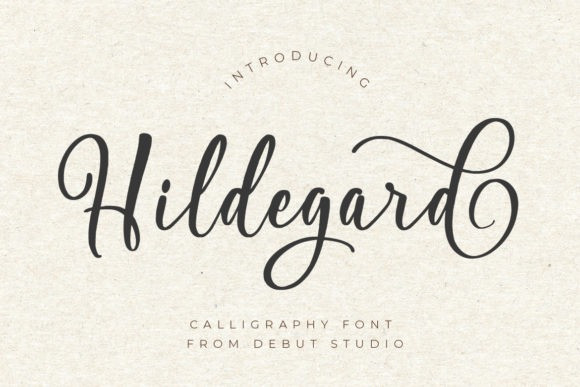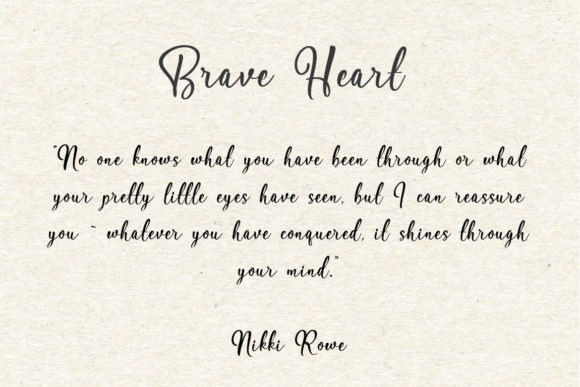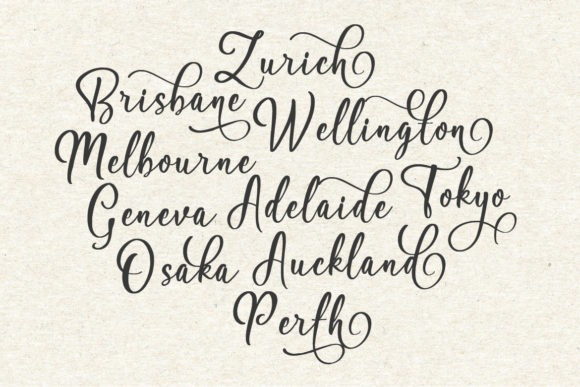
Hildegard Font
Hildegard Script is a graceful script font. Fall for its ravishing style and use it to create gorgeous wedding invitations, beautiful stationary art, eye-catching social media posts, and much more!